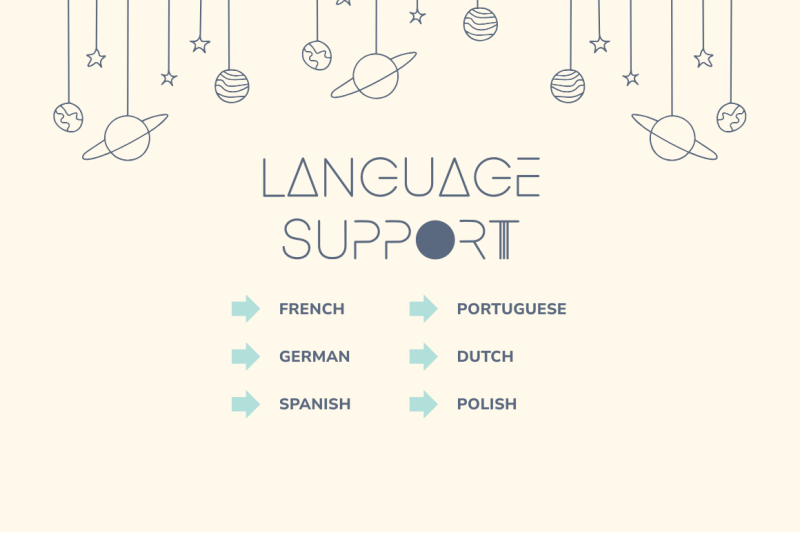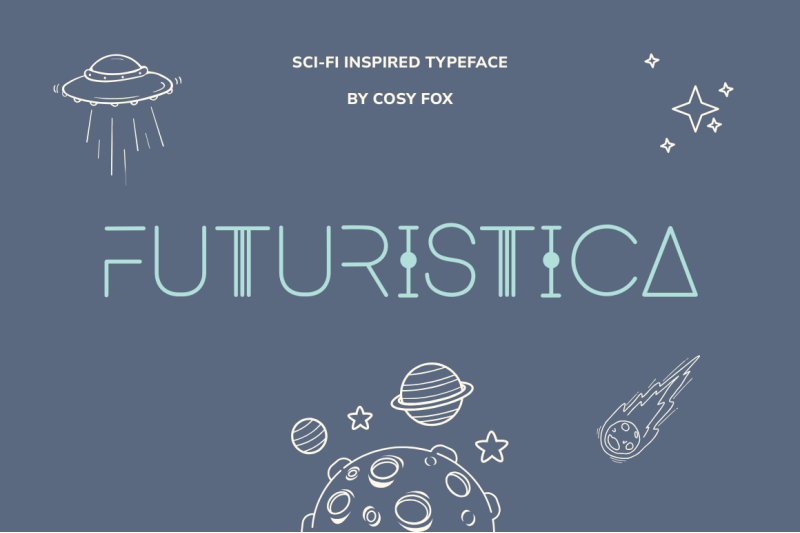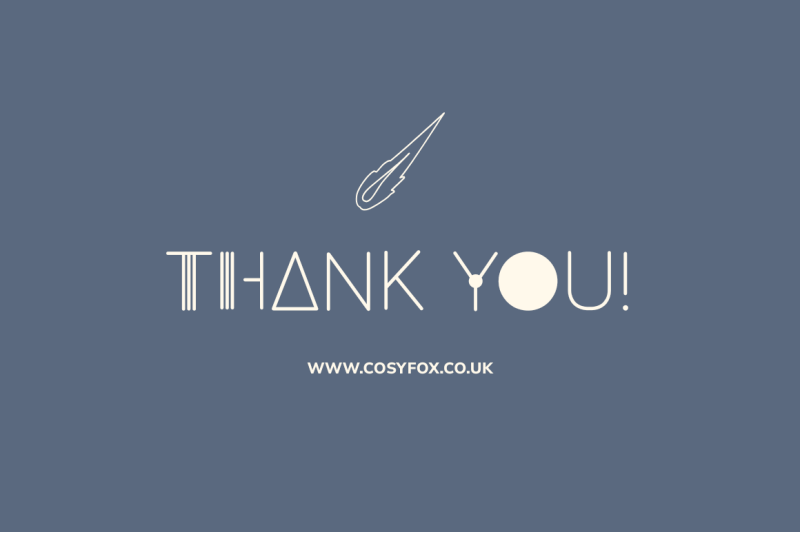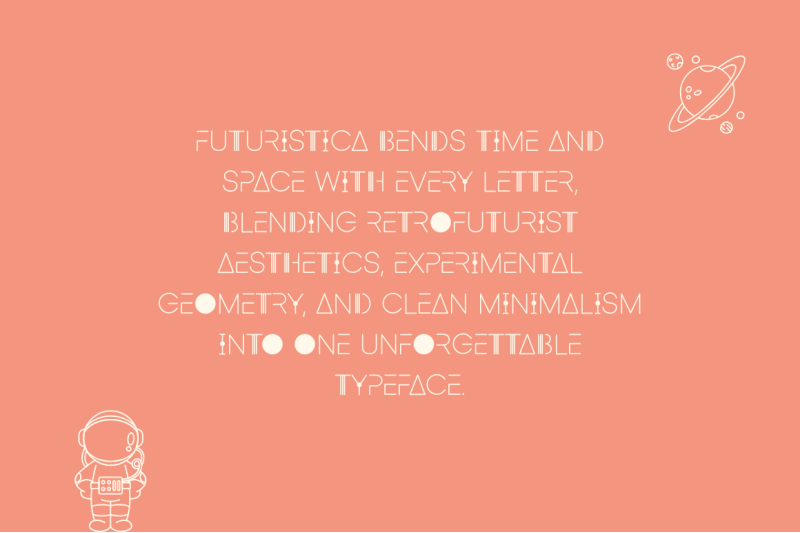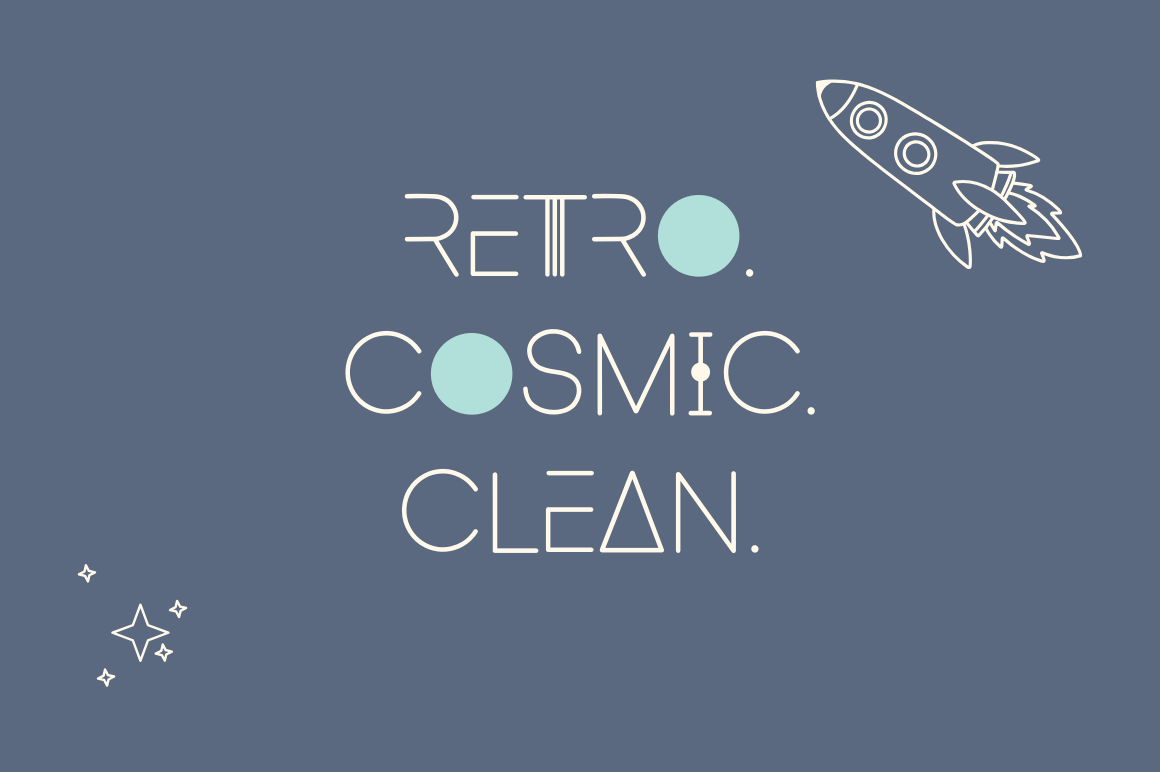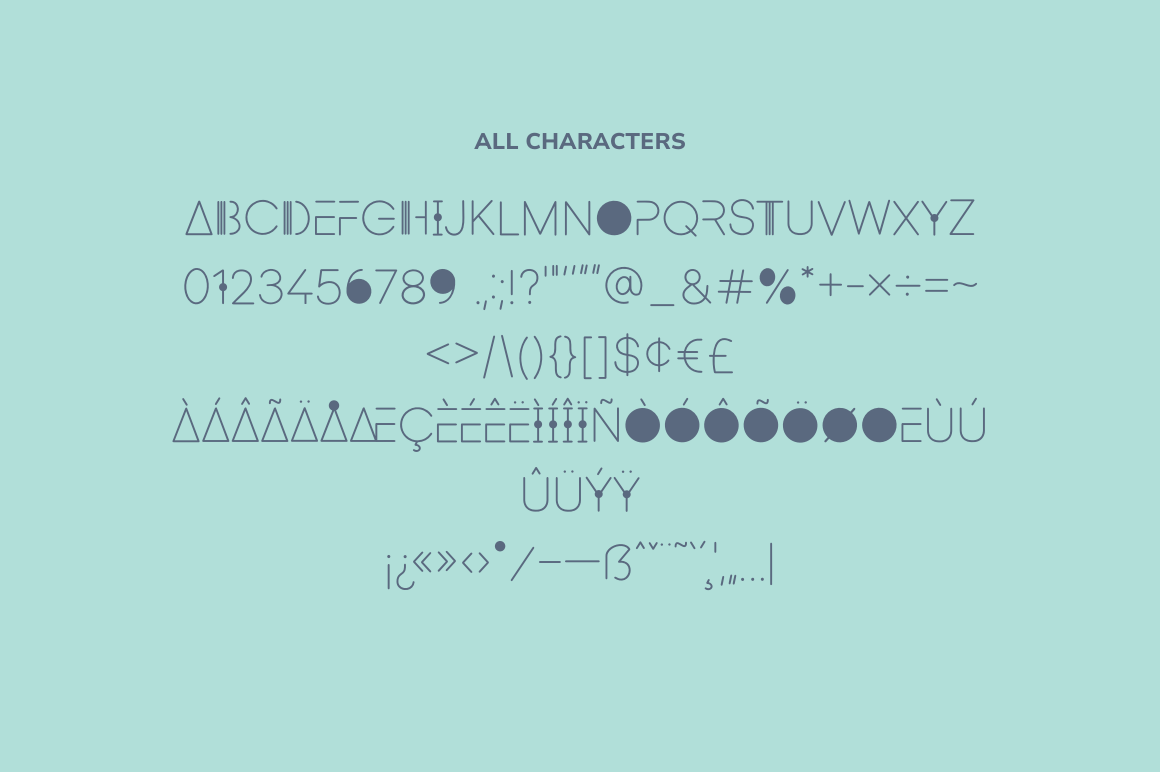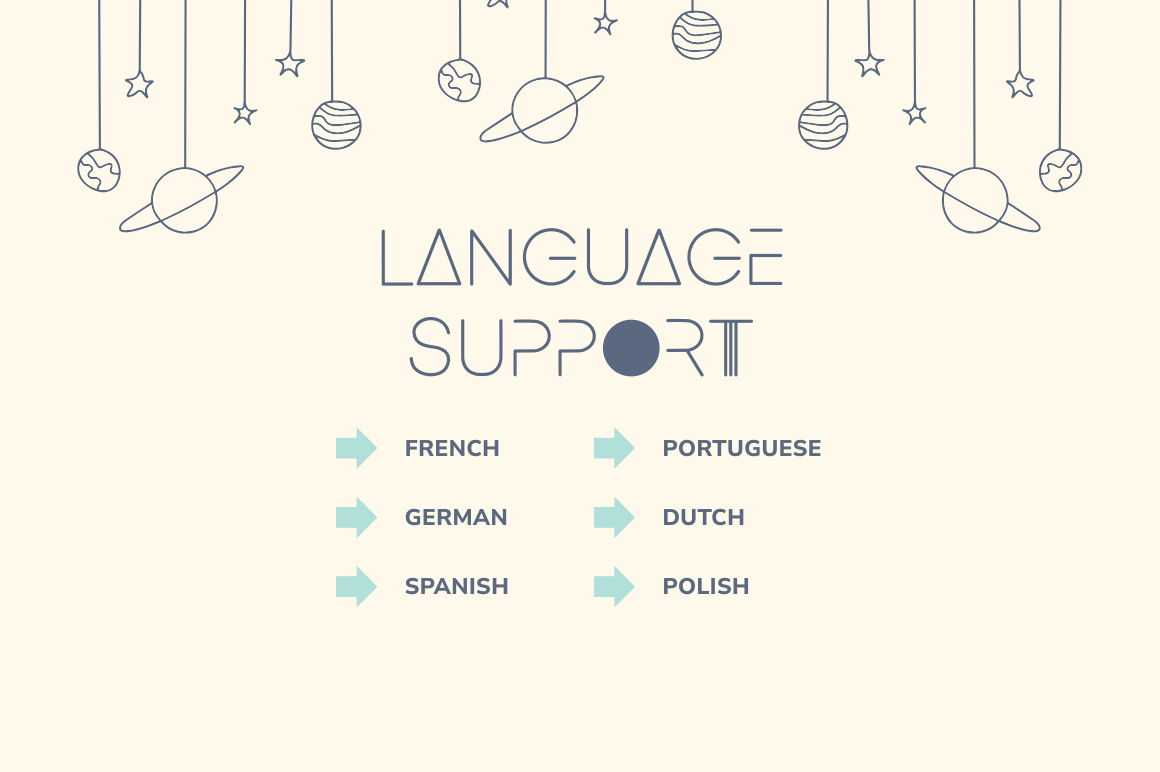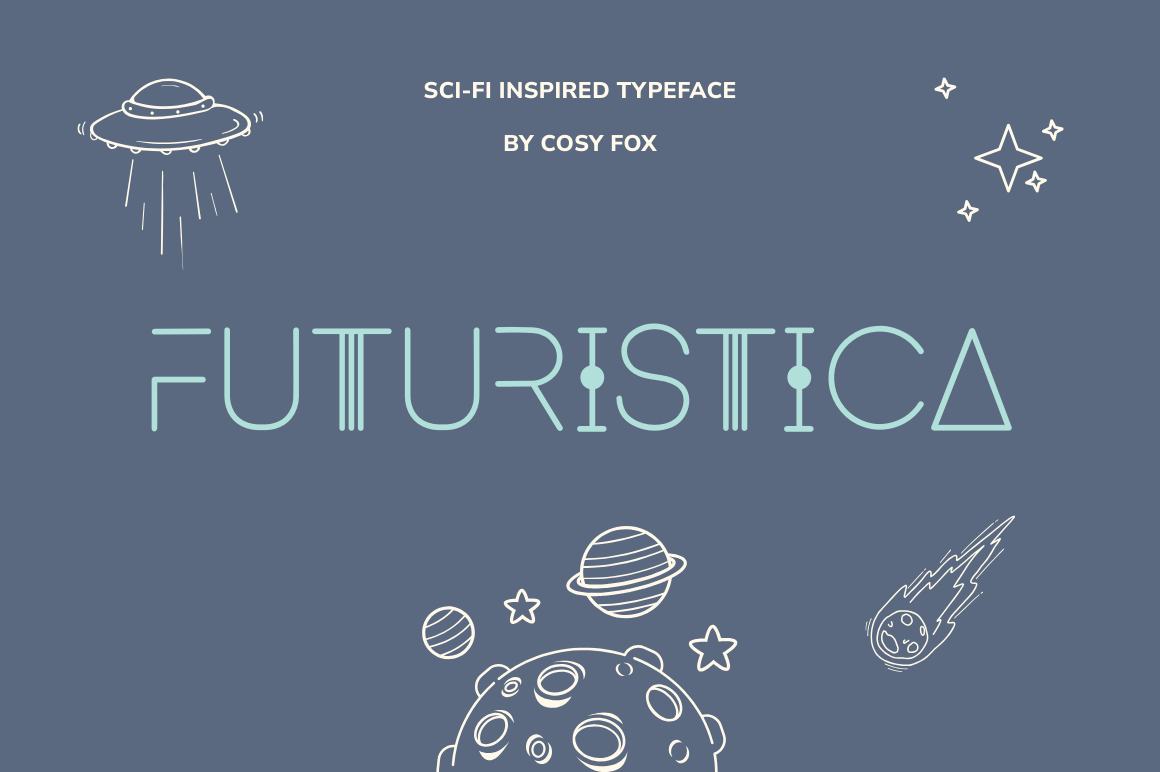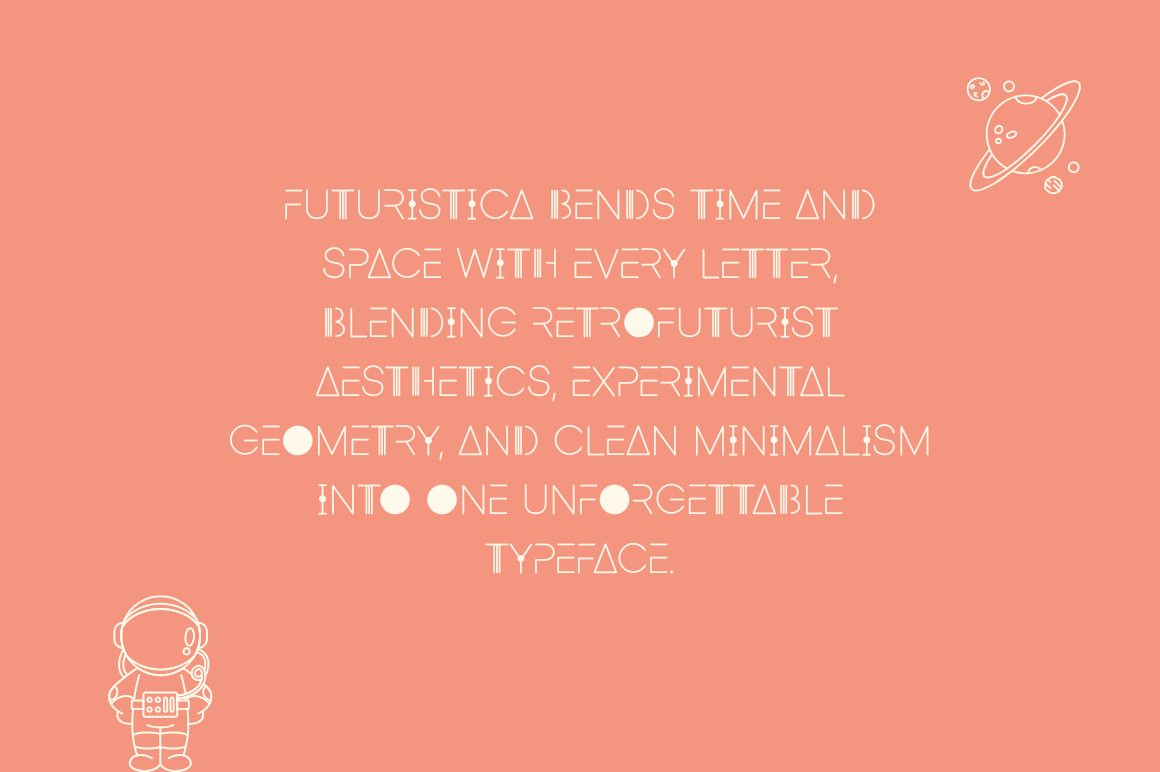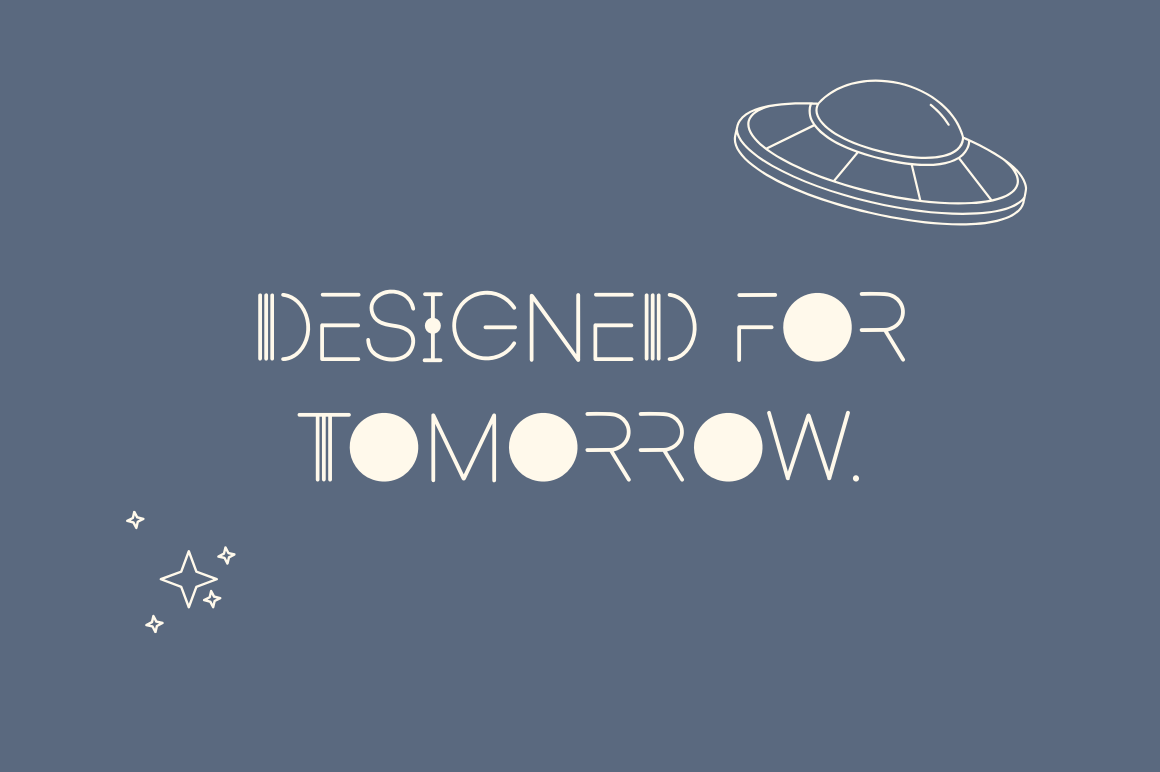
Futuristica Font
Futuristica is a retro-futuristic display font that blends clean geometry with cosmic flair. Think 80s sci-fi posters, digital landscapes, and experimental type labs—this is a font built to stand out. With unique accents, wide spacing, and abstract forms, Futuristica is perfect for branding, album art, editorial layouts, and projects that want to feel just a little ahead of their time. Bold, modern, and full of personality, this all-caps font is easy to use in Canva, Procreate, and all your favourite design software. Language Support: French, German, Spanish, Italian and Portuguese. What You Get: Futuristica .OTF font file. How to Install PDF. Thank You! www.cosyfox.co.uk